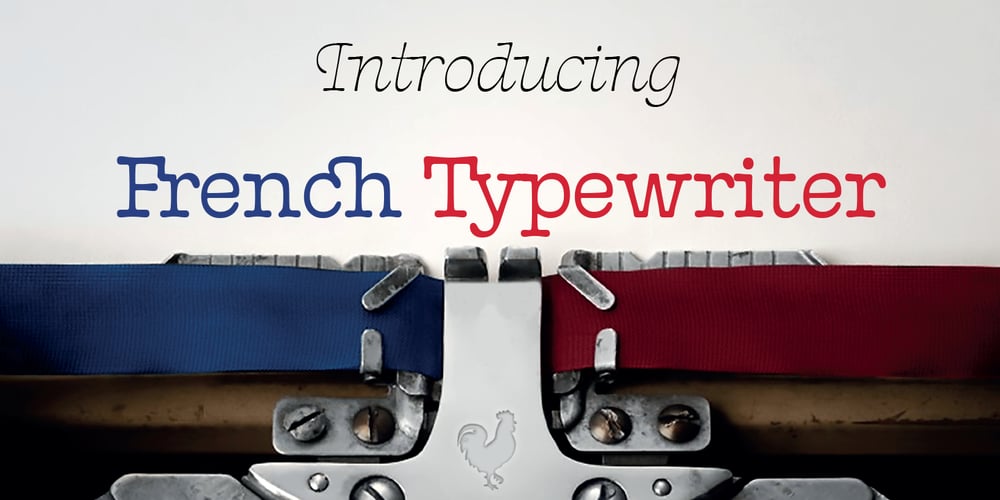
French Typewriter
French Typewriter font
French Typewriter Font Family was designed by Jean-Renaud Cuaz and published by Typorium. French Typewriter contains 12 styles and family package options. French Typewriter is a slab serif typeface created in 2019 by Jean-Renaud Cuaz. It takes roots in the typewriting font styles with a French flair. In the history of this font style, early typewriters were initially thought to be replacements for printing and so featured proportional fonts, before being replaced by monospaced typefaces. French Typewriter was created with proportional design, departing from the constraint of identical width and space. Designed for vintage and modern use with a script influenced italic, French Typewriter provides a large range of weights from Extra Light to Black with matching italics offering a large palette of styles for both vintage and modern design. A series of swash capitales has been created for all 6 italic weights along with ligatures and alternative a, g, y signs to provide opportunities for attractive text design. Fine tuned kerning has been implemented to make this slab serif font family greatly legible in small size. Condensed styles will be available in 2019.